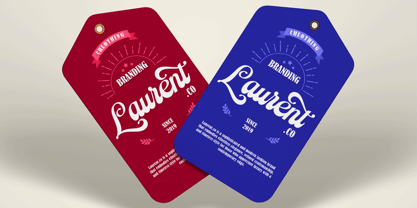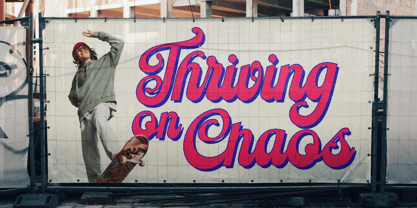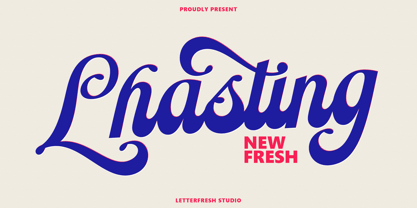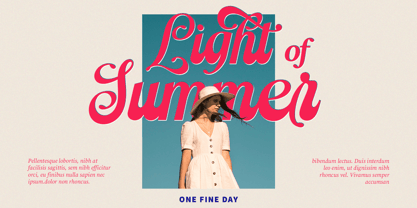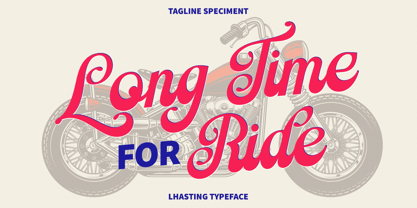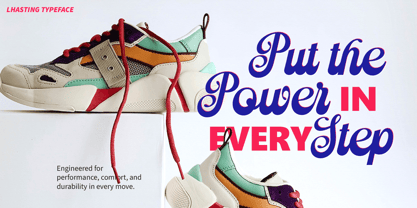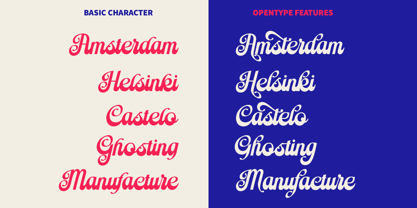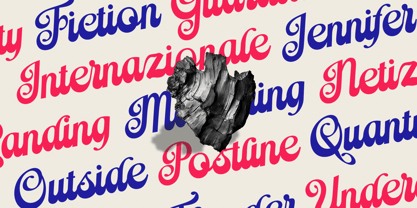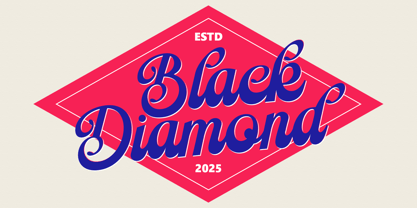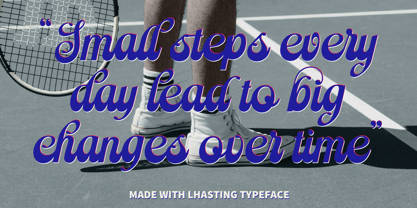
Lhasting Script
The Lhasting Script Font Family was designed by Rizki Andika and published by Letterfreshstudio. Lhasting Script contains 1 styles. More about this family
Lhasting is an elegant and romantic script that can be used in a variety of projects such as logo design, wedding invitations, product packaging, clothing design, and more.
It comes with over 60 style sets, including alternate characters and ligatures built into the OpenType features that allow the script to adapt to any project.